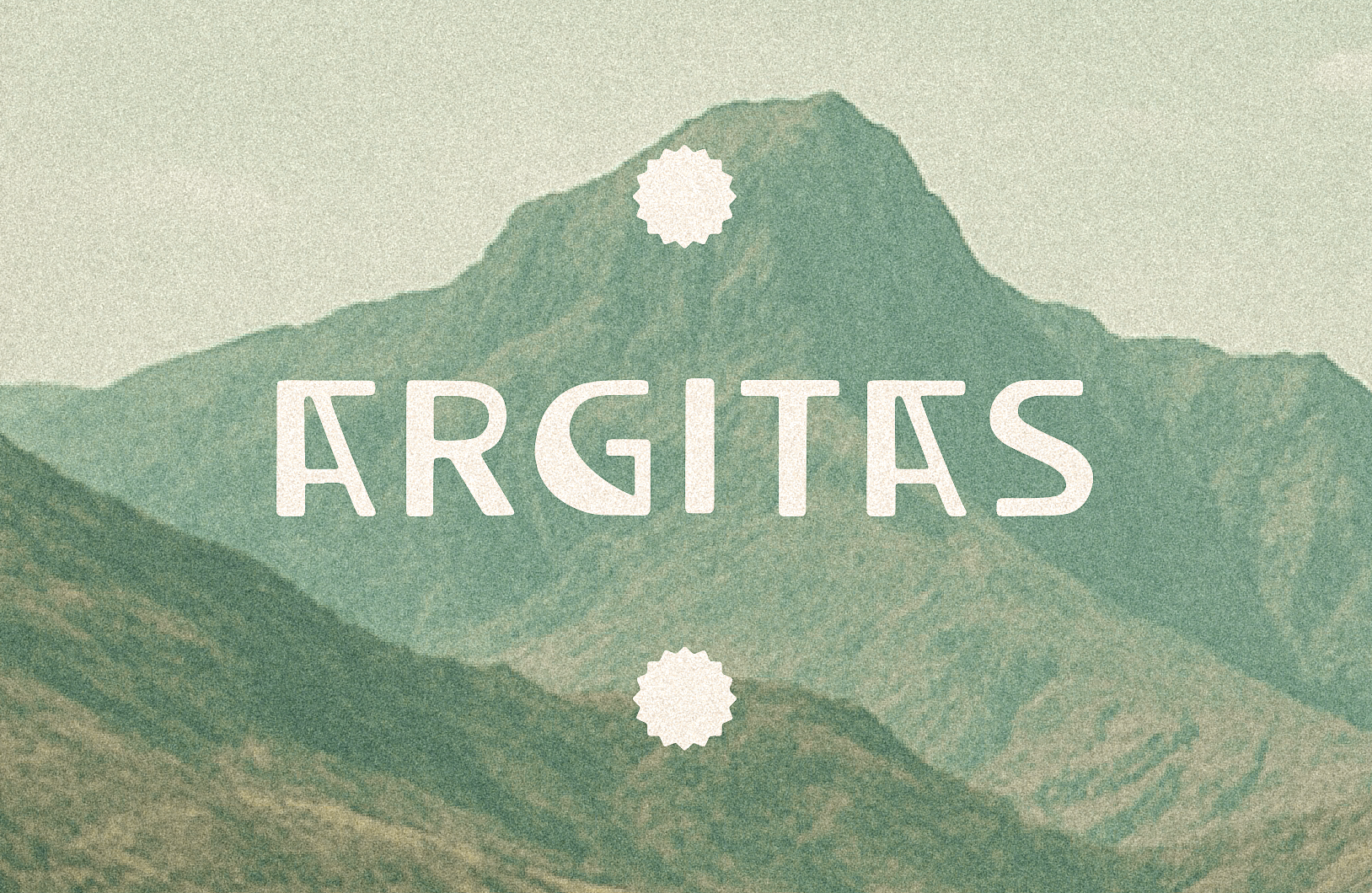
Argitas Font
Born out of found letters and the rugged sun soaked mountains of Spain. Argitas is a fully functional typeface including all punctuation and characters from a variety of languages such as English, Spanish, French, Italian, ect.